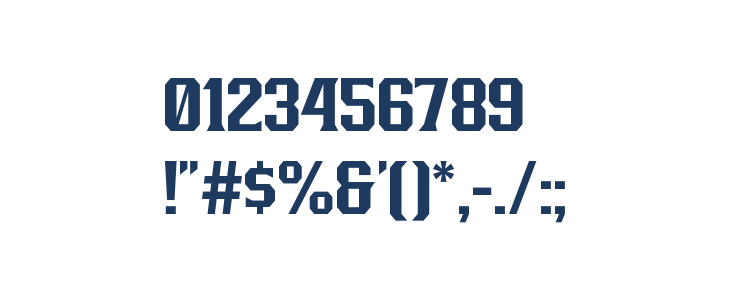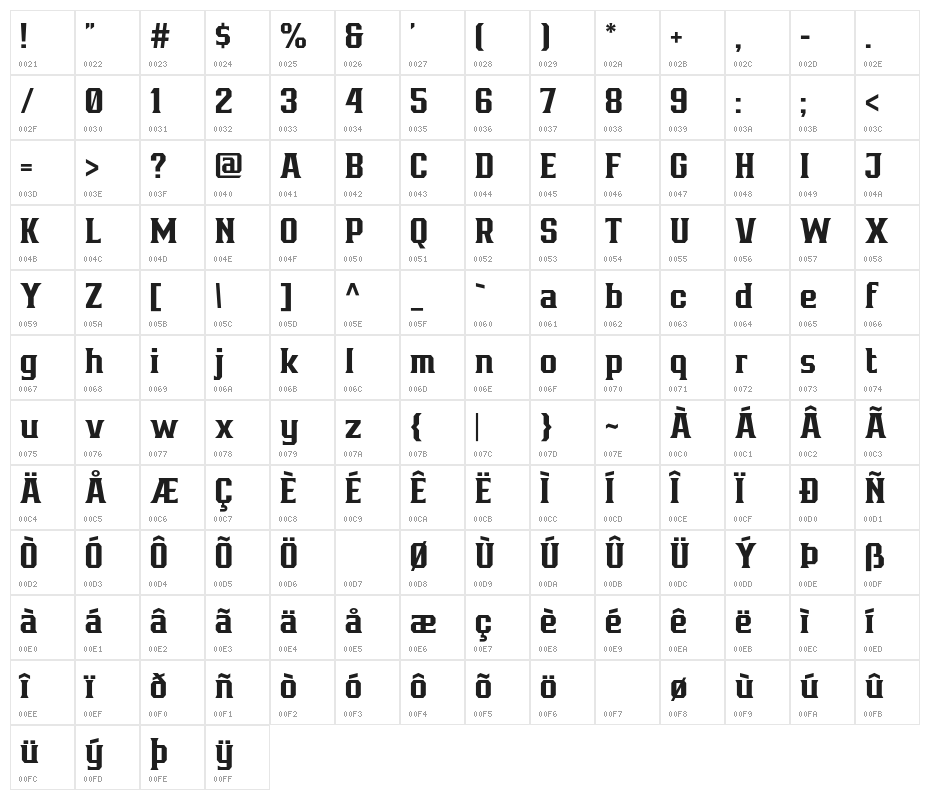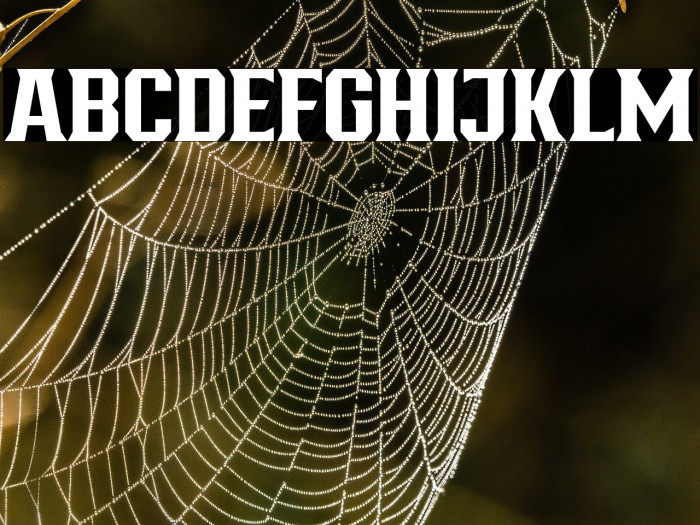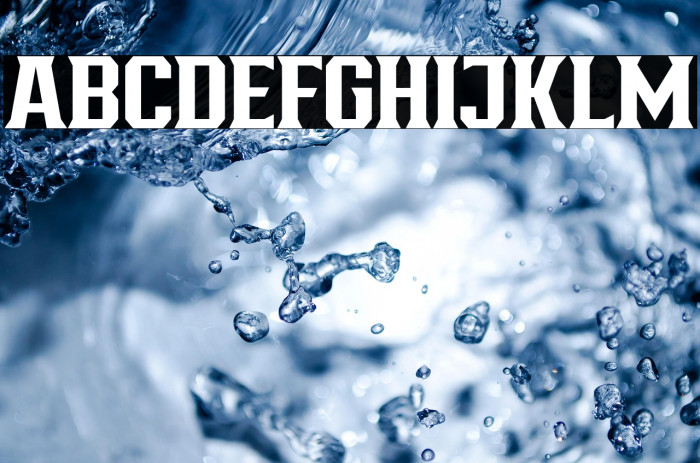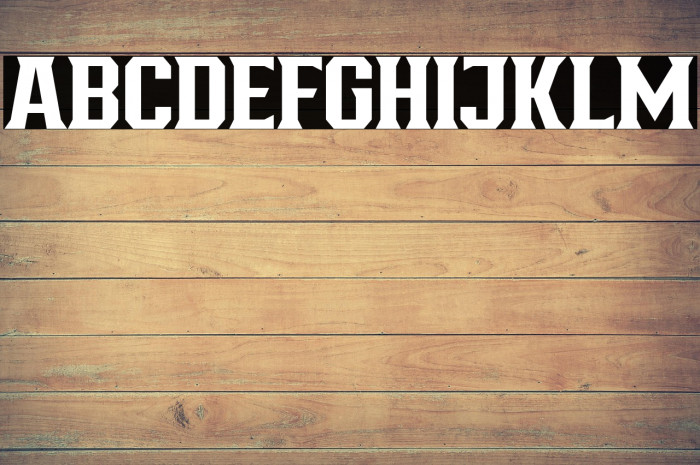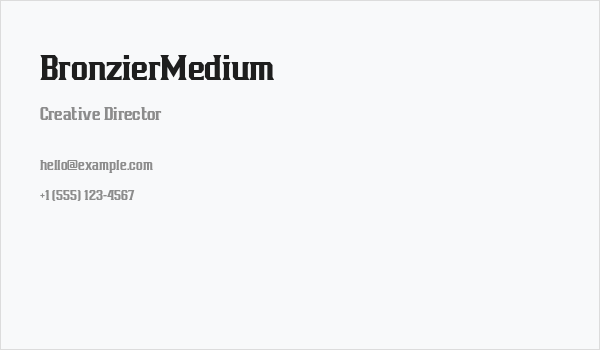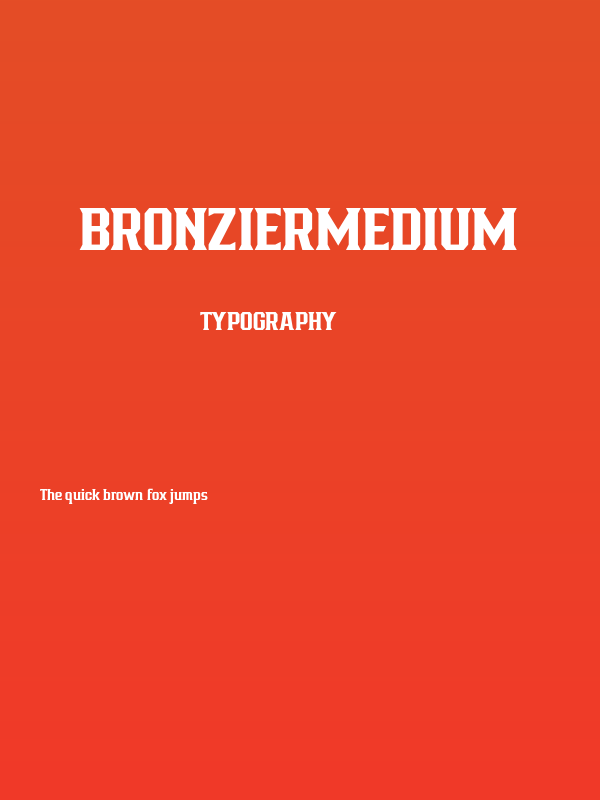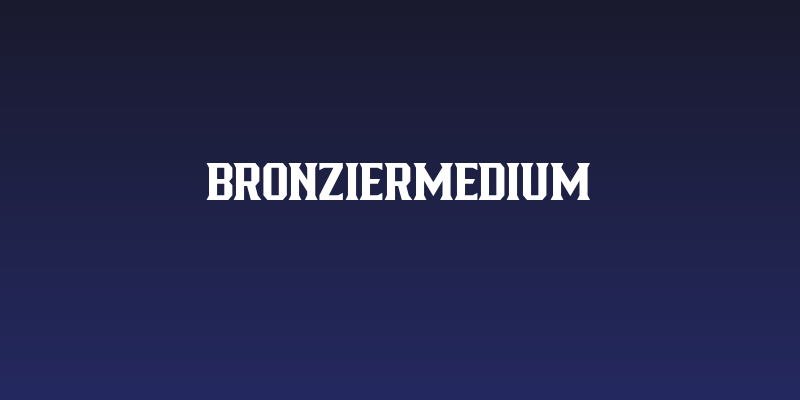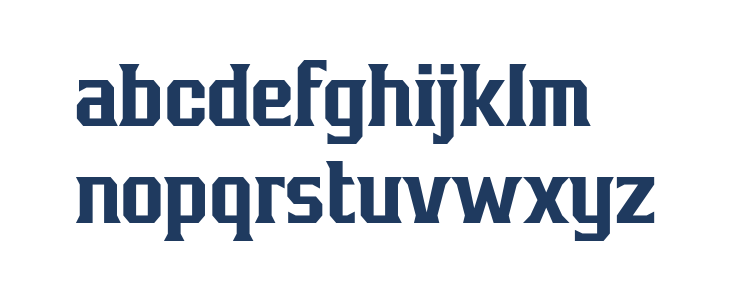
BronzierMedium Font
BronzierMedium Description
This font features a bold and striking design with a strong geometric influence. The uppercase letters are characterized by sharp, angular lines and a consistent stroke width, giving them a powerful and commanding presence. The lowercase letters maintain this boldness while offering a slightly more compact form, ensuring readability. The numerals are equally bold, with a uniform height that aligns well with the uppercase letters. Special characters are designed to match the overall aesthetic, providing a cohesive look across all glyphs. This font's design is reminiscent of vintage or industrial styles, making it ideal for projects that require a strong visual impact.
| Proposed Projects | Ideal for branding, posters, headlines, and any design requiring a strong visual impact. |